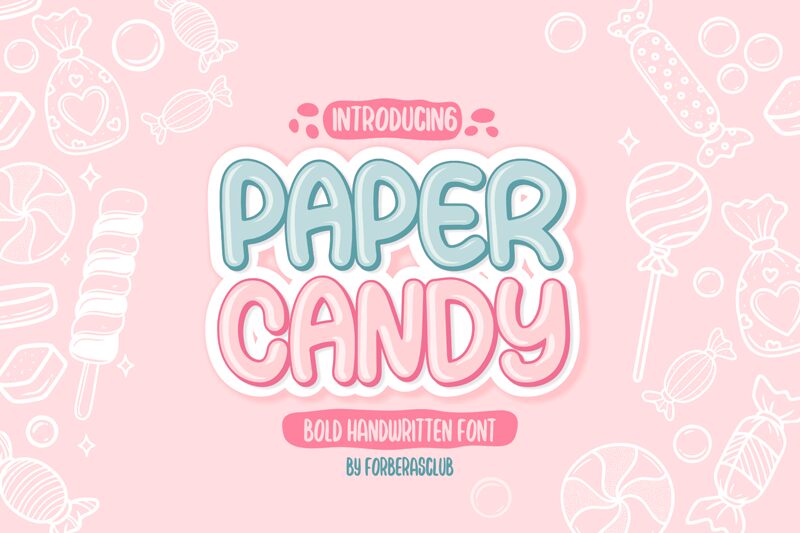
Paper Candy, a whimsical display font crafted by Forberas Club, exudes a captivating, cartoon-inspired aesthetic. With its playful, rounded letterforms and a delightful touch of imperfection, this font evokes a sense of lighthearted charm and youthful energy. The bold, distinctive strokes and the subtle variations in thickness add depth and character, making each letter stand out with unique personality.
Paper Candy's versatility shines through its ability to elevate a wide range of design projects, from vibrant branding and packaging to engaging children's illustrations and entertainment-focused websites. Its fun, approachable nature makes it an excellent choice for capturing the attention of audiences seeking a touch of playfulness and whimsy in their visual experiences.
Paper Candy